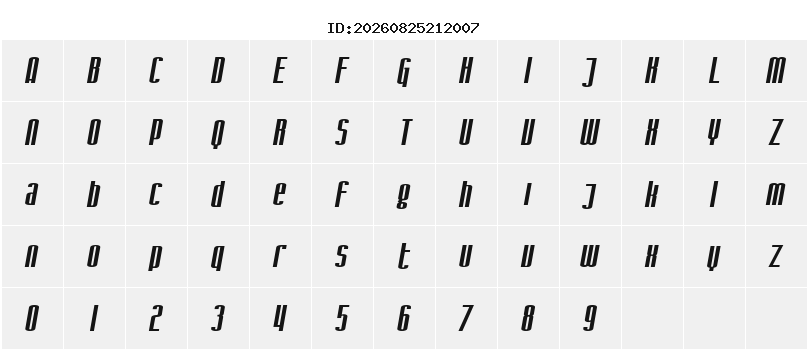
• Font Name: SF Iron Gothic Extended
• Font Style: Oblique
• Font ID: SF Iron Gothic Original
• Full Font Name: SF Iron Gothic Extended Oblique
• PostScript Name: SFIronGothicExtended-Oblique
About SF Iron Gothic Extended.ttf
SF Iron Gothic Extended.ttf is a modern, elegant sans-serif font designed for ultimate readability and visual harmony. Perfect for branding, headlines, web design, and print materials.